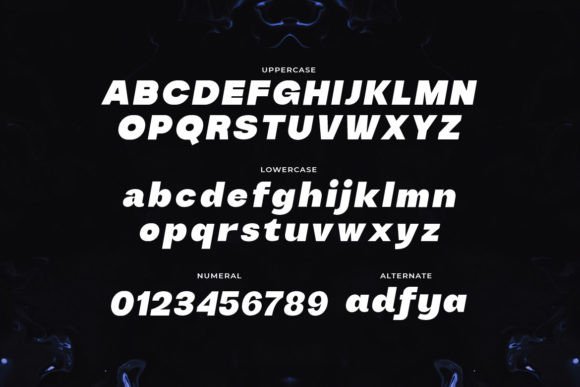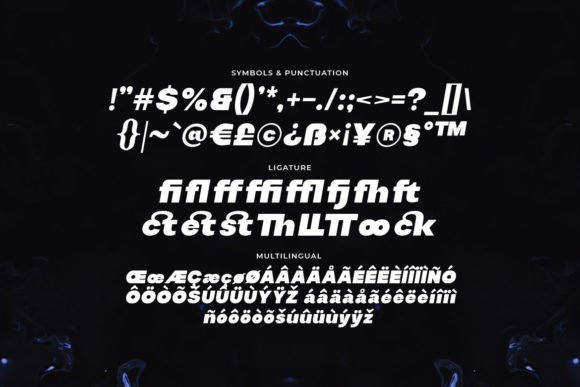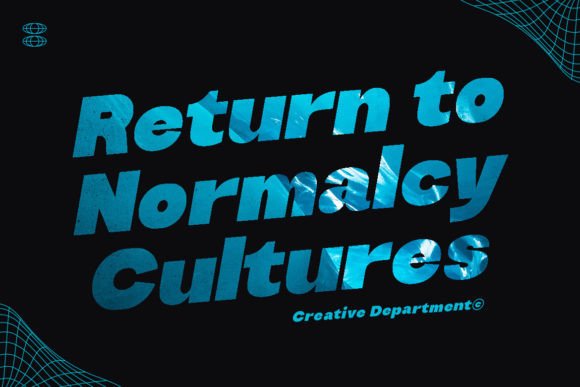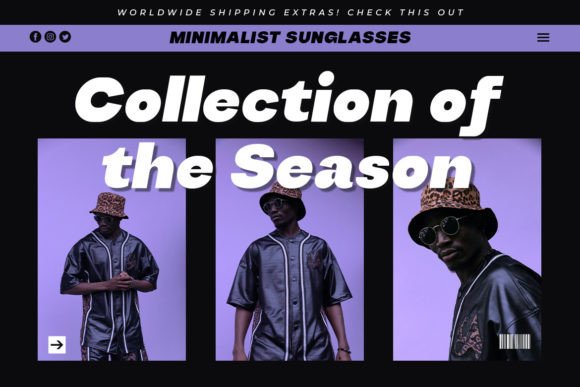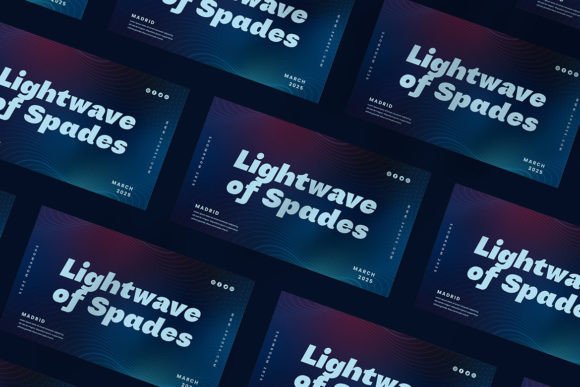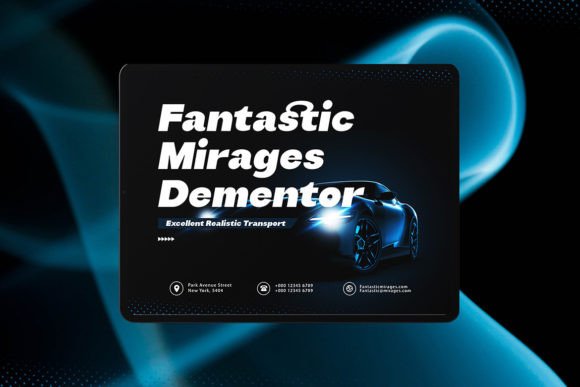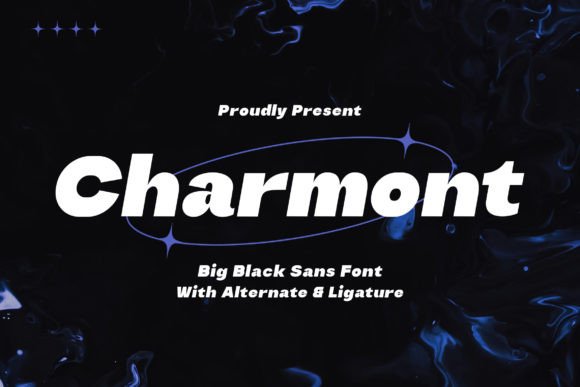
Introducing Charmont Font: The Ultimate Bold and Powerful Big Black Sans Font
In the world of typography, a font can make or break a design. When it comes to making a statement, there’s no room for subtlety. That’s where Charmont Font comes in – a bold and powerful big black sans font that demands attention. With its strong lines and impactful design, Charmont is perfect for designs that need to pack a punch. Whether you’re designing a poster, creating marketing materials, or crafting a website, Charmont will give your project a powerful and bold look that’s sure to leave a lasting impression.
The Power of Bold Typography
Bold typography is a design trend that’s here to stay. In a world where visual noise is at an all-time high, bold fonts like Charmont help cut through the clutter and grab the viewer’s attention. With its big and black design, Charmont is the perfect choice for headlines, titles, and other attention-grabbing elements. Its sleek and modern look also makes it a great choice for designs that require a touch of sophistication.
What Makes Charmont Font So Versatile?
Charmont is more than just a bold font – it’s a versatile design tool that can be used in a variety of settings. Its big and bold design makes it perfect for:
- Headlines and titles that need to make a statement
- Posters and flyers that require a bold and attention-grabbing design
- Marketing materials, such as brochures and business cards, that need to stand out
- Websites and landing pages that require a bold and modern look
But Charmont’s versatility doesn’t stop there. Its sleek and modern design also makes it a great choice for:
- Logos and branding materials that require a bold and sophisticated look
- Packaging design that needs to stand out on store shelves
- Advertising and billboard design that requires a bold and attention-grabbing message
Key Features of Charmont Font
So, what makes Charmont Font so special? Here are just a few of its key features:
- Bold and powerful design: Charmont’s big and black design makes it perfect for headlines, titles, and other attention-grabbing elements.
- Sleek and modern look: Charmont’s sleek and modern design makes it a great choice for designs that require a touch of sophistication.
- Versatile: Charmont can be used in a variety of settings, from posters and flyers to websites and marketing materials.
- Easy to read: Despite its bold design, Charmont is easy to read, even at small sizes.
How to Use Charmont Font in Your Designs
Using Charmont Font in your designs is easy. Here are a few tips to get you started:
- Use it for headlines and titles: Charmont’s bold design makes it perfect for headlines and titles that need to make a statement.
- Pair it with a complementary font: Charmont pairs well with a variety of fonts, including sans-serif fonts like Arial and Helvetica.
- Experiment with different sizes and colors: Charmont’s bold design makes it perfect for a variety of sizes and colors. Experiment with different combinations to find the one that works best for your design.
In conclusion, Charmont Font is a bold and powerful big black sans font that’s perfect for designs that need to make a statement. Its strong lines and impactful design make it a versatile design tool that can be used in a variety of settings. Whether you’re designing a poster, creating marketing materials, or crafting a website, Charmont will give your project a powerful and bold look that’s sure to leave a lasting impression. So why wait? Download Charmont Font today and start creating bold and attention-grabbing designs that demand attention.